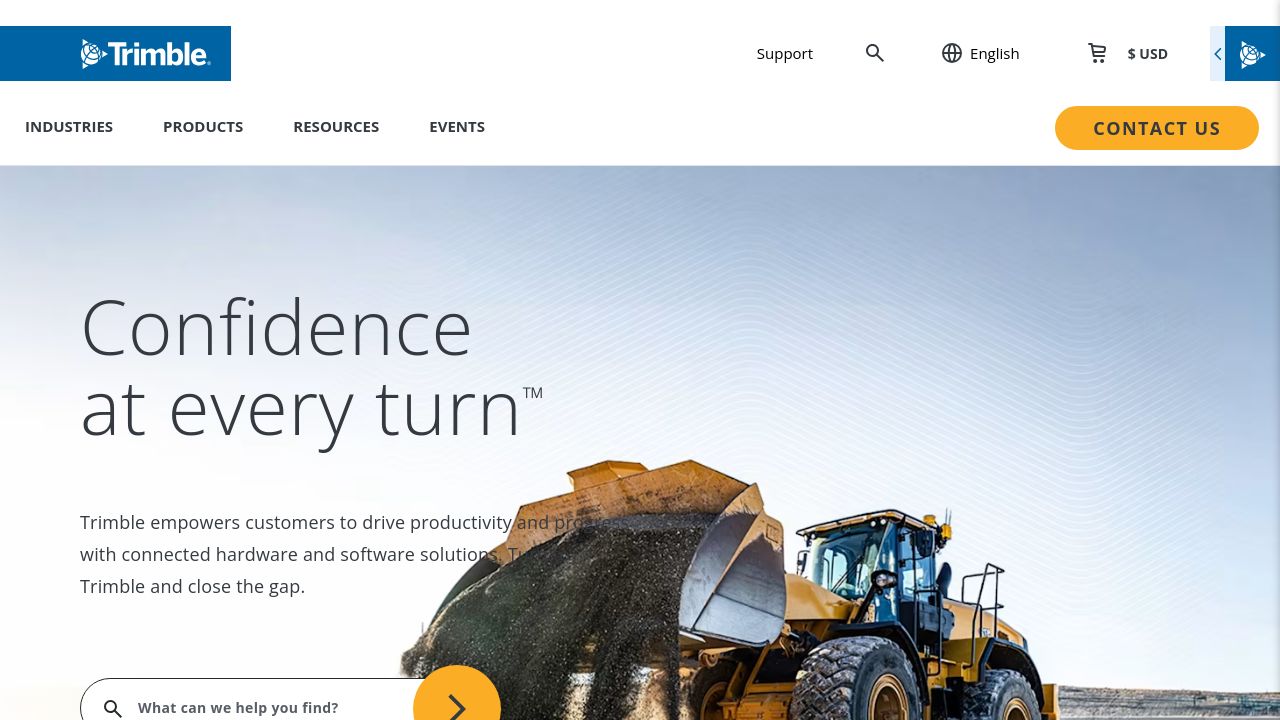
Trimble.com uses Open Sans as its main typeface. Arial, Helvetica, Segoe UI and Consolas are declared as fallbacks. 7 fonts detected, last checked Sep 23, 2026.
Trimble.com is a leading platform that connects the physical and digital worlds within the construction, geospatial, and transportation industries. The primary font, Open Sans, is utilized in weights 300 and 800, suggesting a focus on clarity and accessibility for users. This choice reflects Trimble's commitment to providing intelligent data solutions, while fallback options like Arial and Helvetica ensure readability across various devices and contexts.
font-family: 'Open Sans', sans-serif;These fonts are listed in the CSS as backups. The browser only falls back to them if the main fonts above fail to load.
Trimble.com uses Open Sans as its main typeface. Arial, Helvetica, Segoe UI and Consolas are declared as fallbacks. 7 fonts detected, last checked Sep 23, 2026.
The primary font used on trimble.com is Open Sans, specifically in weights 300 and 800, with fallback options including Arial, Helvetica, and others.
Open Sans is known for its legibility and clean design, making it a popular choice compared to alternatives like Arial and Helvetica, which are also used as fallbacks.
Open Sans offers a range of styles and weights, from light to extra bold, allowing for flexible design choices on trimble.com and beyond.